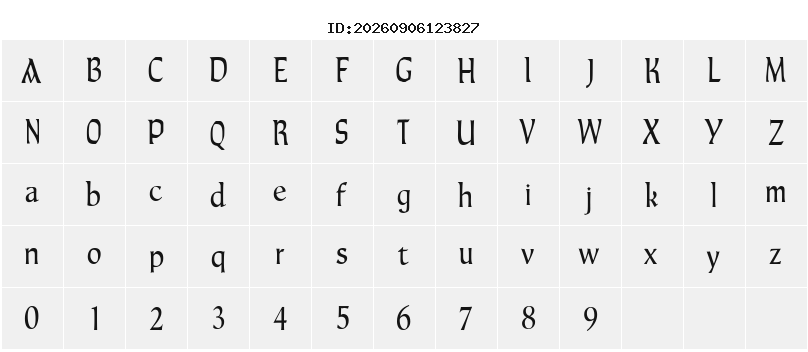
TaraType Preview
About TaraType.ttf
TaraType.ttf is a modern, elegant sans-serif font designed for ultimate readability and visual harmony. Perfect for branding, headlines, web design, and print materials.